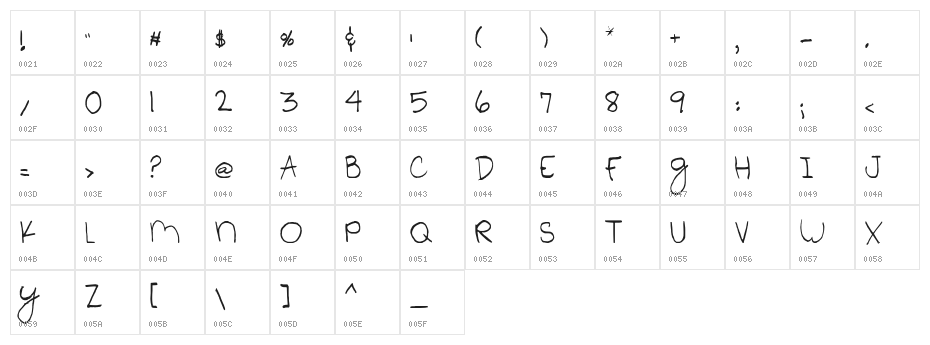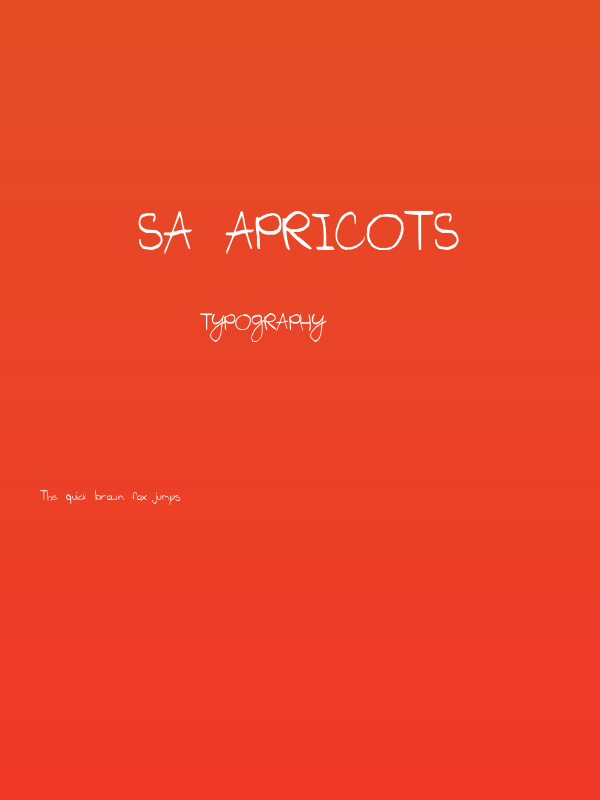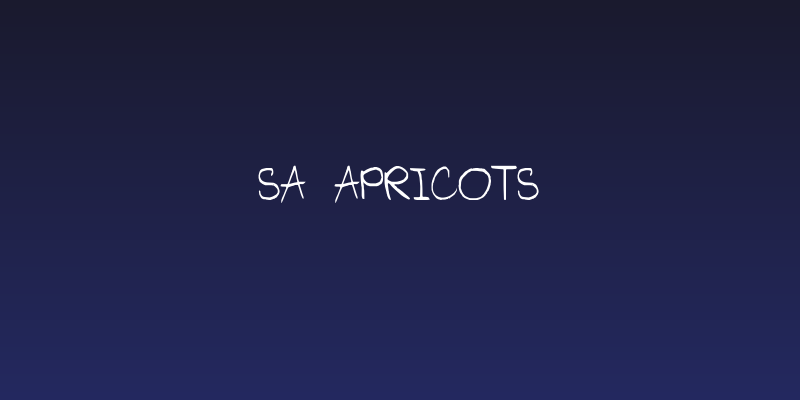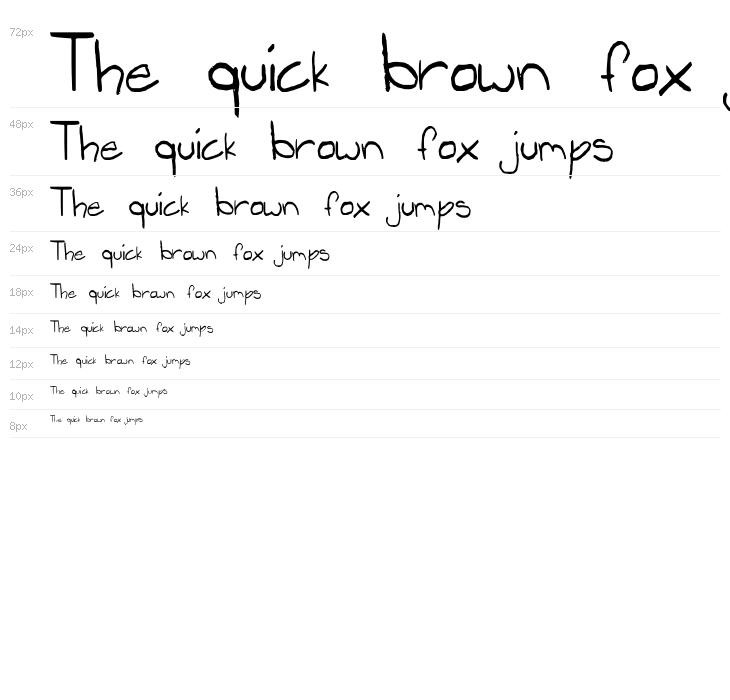
SA Apricots Font
SA Apricots Description
This font features a playful and casual handwritten style, characterized by its uneven strokes and organic flow. The letters have a natural, slightly irregular appearance, giving them a personal and informal feel. The uppercase characters are bold and prominent, while the lowercase letters maintain a consistent style with a touch of whimsy. Numbers and special characters are crafted to match the overall aesthetic, ensuring a cohesive look. The font's unique charm makes it suitable for creative projects that require a personal touch.
| Use Case | Logos, Invitations, Creative projects |
| Proposed Projects | Ideal for greeting cards, personal invitations, children's books, and creative branding projects. |